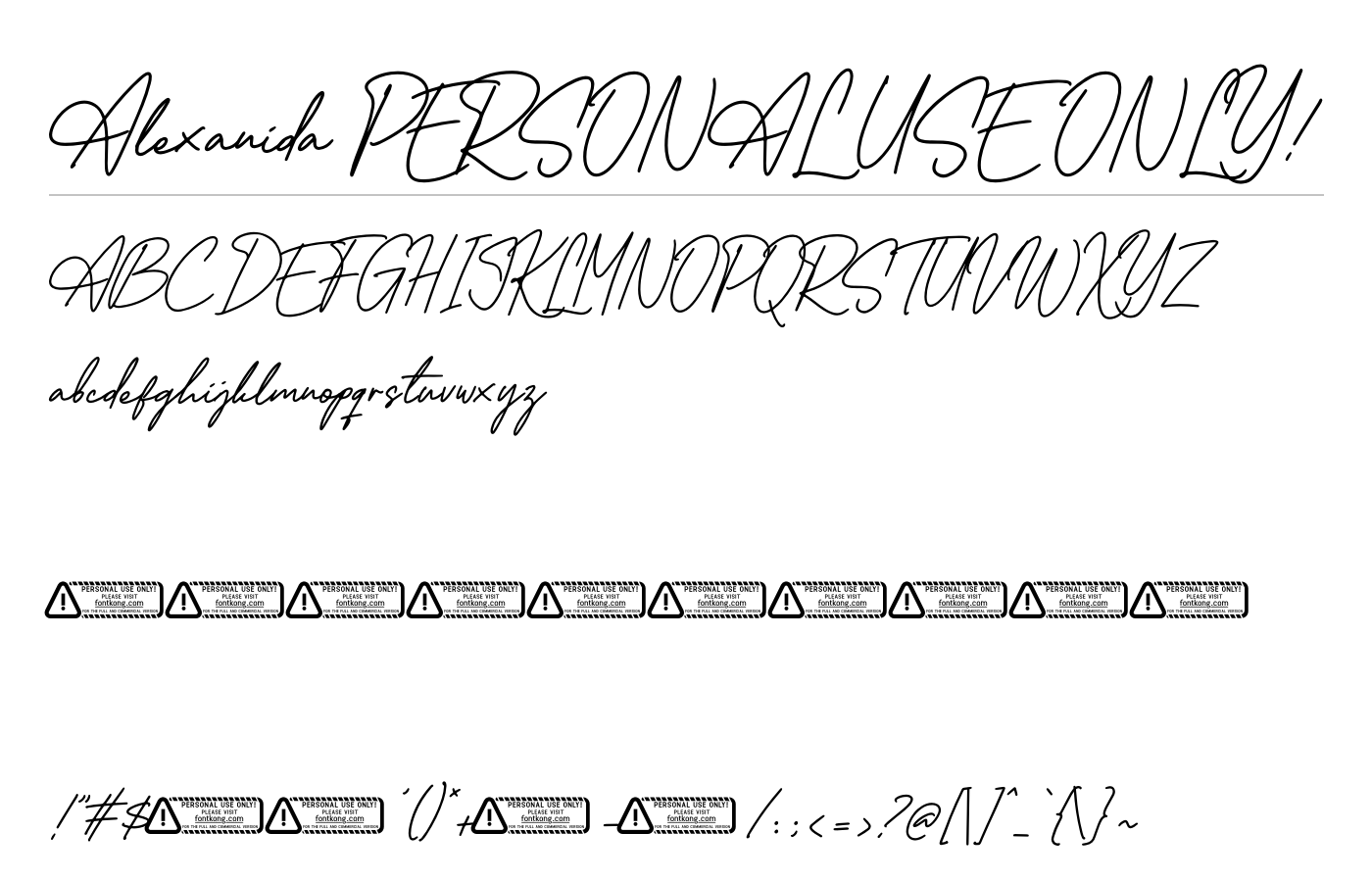
Alexanida is a stylish handwritten script font characterized by its slender, flowing letterforms and elegant yet casual feel. Its tall, narrow characters with delicate, slightly irregular strokes convey a personal and creative vibe, making it perfect for invitations, branding, and projects that seek a chic, approachable touch. This font works especially well in expressive logos, social media graphics, and editorial designs where a handwritten, authentic look is desired.
Alexanida PERSONAL USE ONLY! Font
About Alexanida PERSONAL USE ONLY! Font